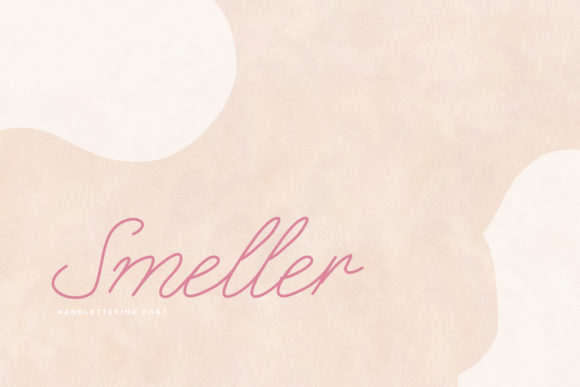
Immerse yourself in the captivating world of Smeller Script, a breathtaking handwritten font that redefines elegance. Its meticulously crafted curves and delicate strokes bring an air of sophistication to any creative project, making it the ultimate choice for discerning designers seeking a unique and impactful font. Step into the realm of beauty and let Smeller's charm elevate your designs to new heights.
Unleash your creativity with the boundless versatility of Smeller Script. With its innate ability to adapt effortlessly to a multitude of design styles and themes, Smeller transcends the boundaries of genre. Whether you're crafting elegant invitations, captivating social media graphics, or adding a touch of personality to your branding, Smeller rises to the occasion, delivering remarkable results that leave a lasting impression.
Experience the sheer joy of using Smeller Script. Its intuitive design and user-friendly interface make it an absolute pleasure to work with. Seamlessly integrate Smeller into your design software and watch as it effortlessly complements your artistic vision. Let the creative process flow naturally as Smeller seamlessly blends with your ideas, enhancing them with its timeless beauty.